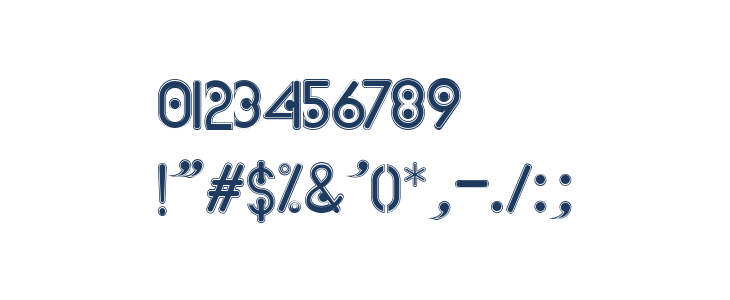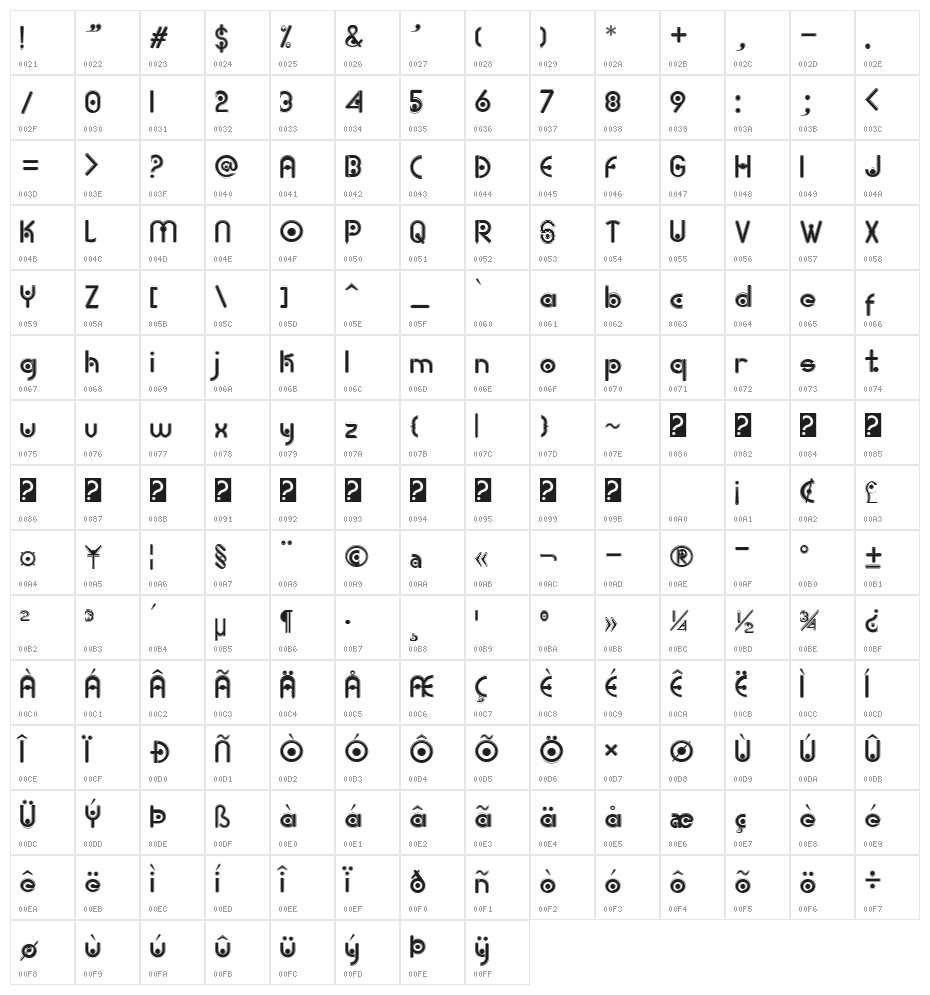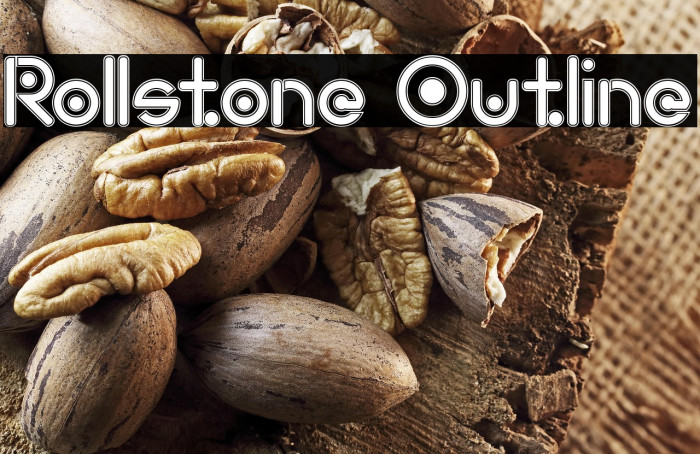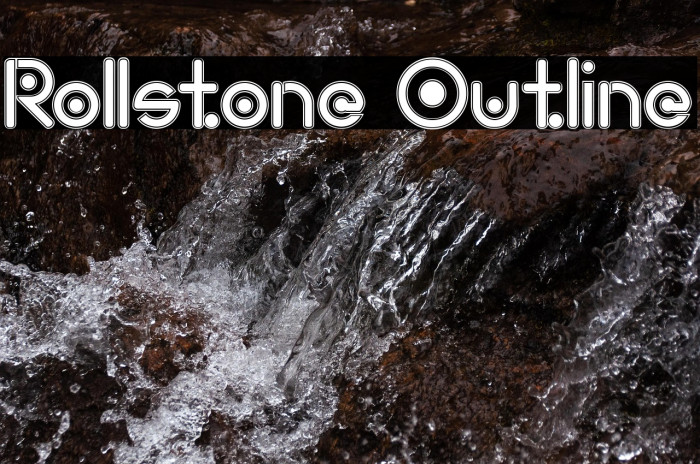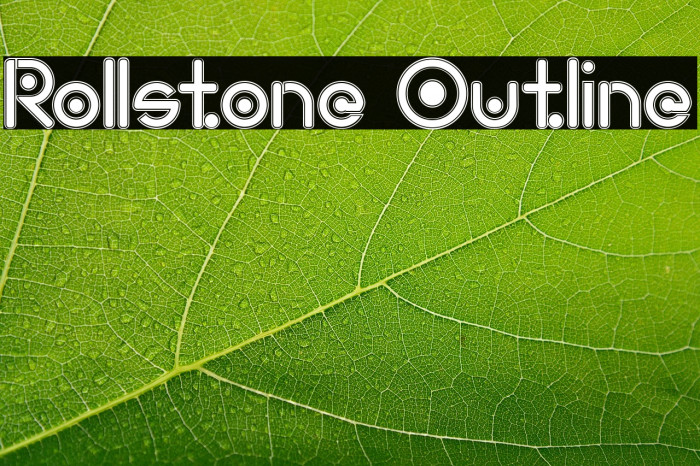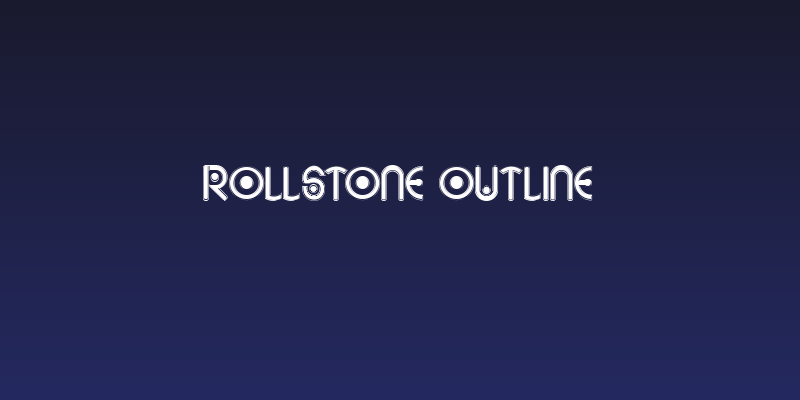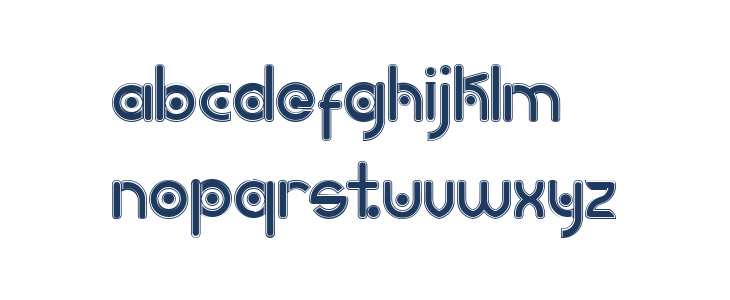
Rollstone Outline Font
Rollstone Outline Description
This font features a unique outline style that combines modern and geometric elements. The characters are designed with a bold outline that creates a striking visual effect, making it ideal for attention-grabbing designs. The uppercase and lowercase letters maintain a consistent width, with rounded edges that soften the overall appearance. The numerals and special characters follow the same design principles, ensuring uniformity across all glyphs. This font's distinct style makes it suitable for creative projects where a bold statement is desired.
| Proposed Projects | Ideal for posters, logos, branding, and headlines where a bold, modern look is needed. |